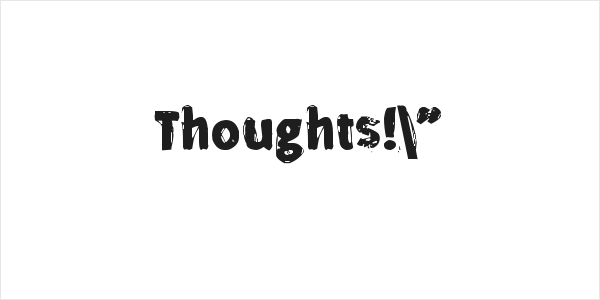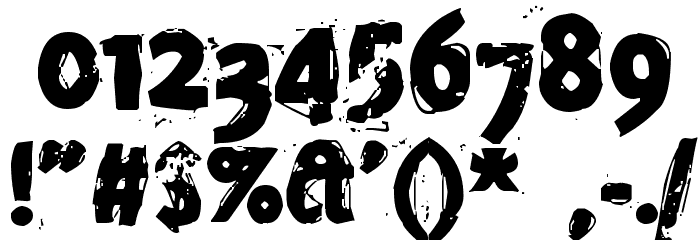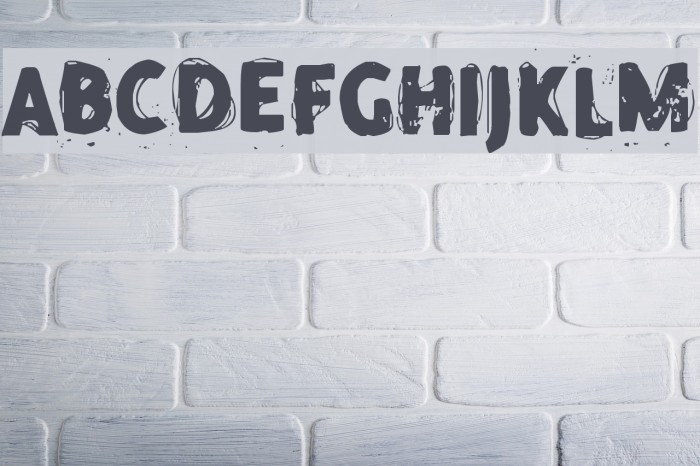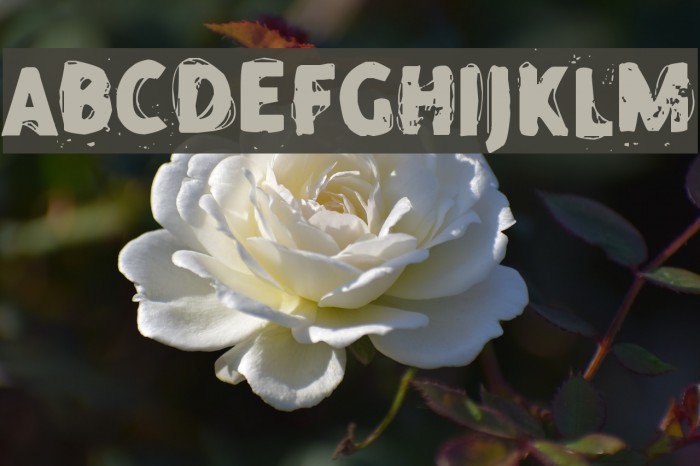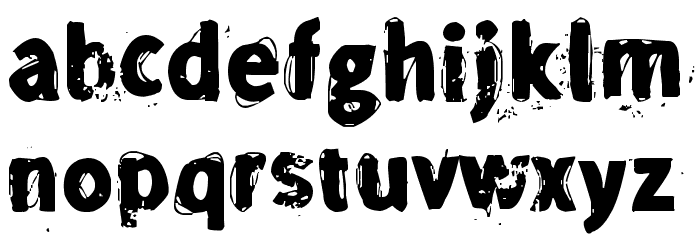
Thoughts!" Font
Thoughts!" Description
This font features a distressed and grungy style, with a bold and impactful presence. The characters are irregularly shaped, giving a hand-painted or weathered appearance. The edges are rough and uneven, contributing to its raw and edgy aesthetic. This font is highly decorative, with a unique texture that suggests a sense of movement and energy. The uppercase and lowercase letters maintain a consistent style, while the numbers and special characters follow suit with the same distressed look. This font is ideal for projects that require a bold statement or an artistic touch.
| Overall Style | Grunge, Artistic |
| Use Case | Headlines, Posters, Album Covers |
| Proposed Projects | Ideal for music album covers, posters, urban-themed designs, or any project needing a bold, artistic statement. |